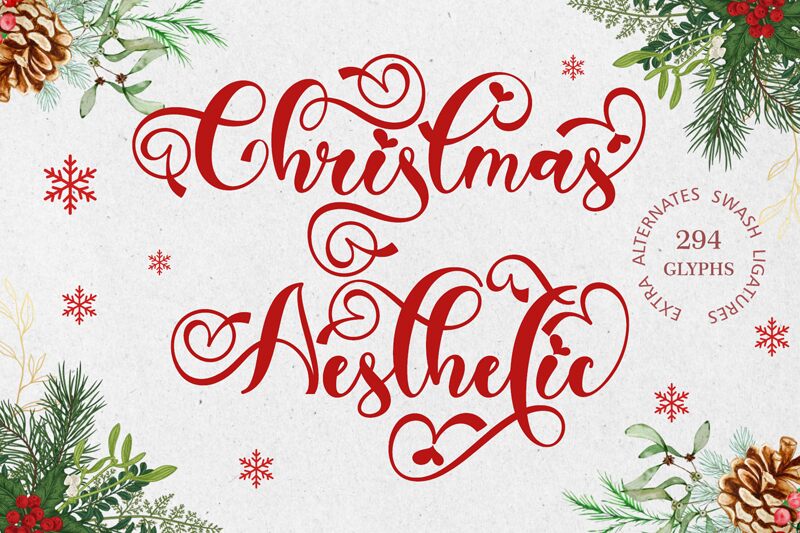
Christmas Aesthetic font by Yoga Letter is a free holiday font that beautifully captures the essence of the festive season. It is characterized by its decorative and ornate design, making it an elegant choice for projects that demand a touch of festivity and romance. Expressive with a whimsical quality, this typeface effortlessly conveys a flowing aesthetic ideal for evoking a cheerful spirit.